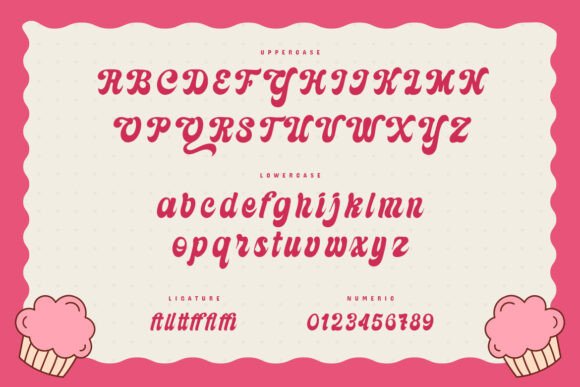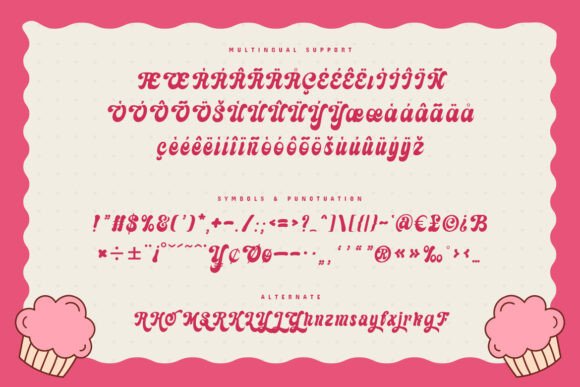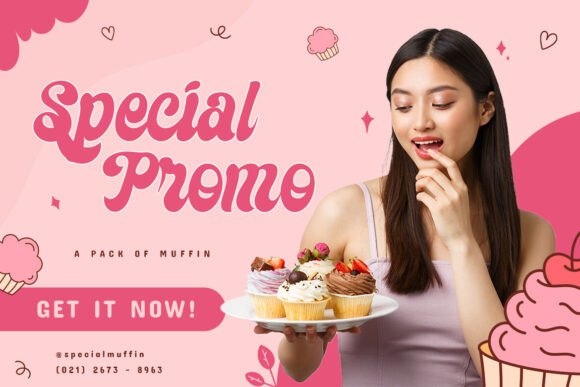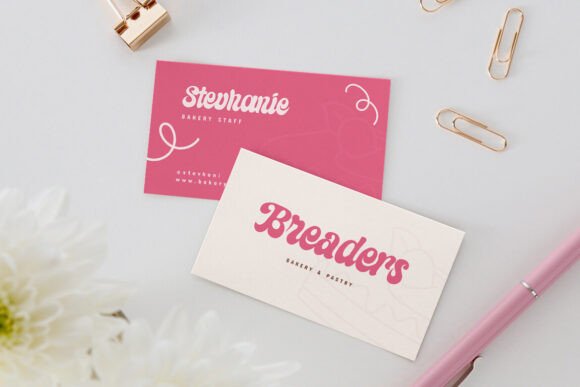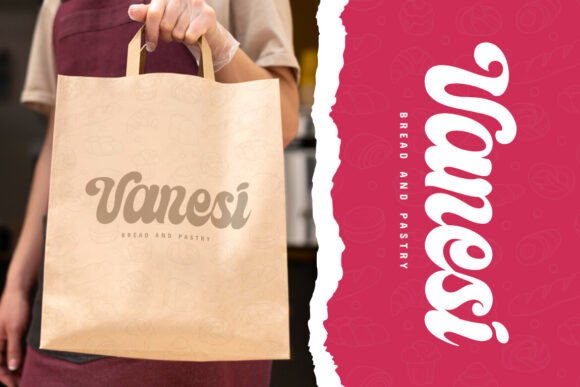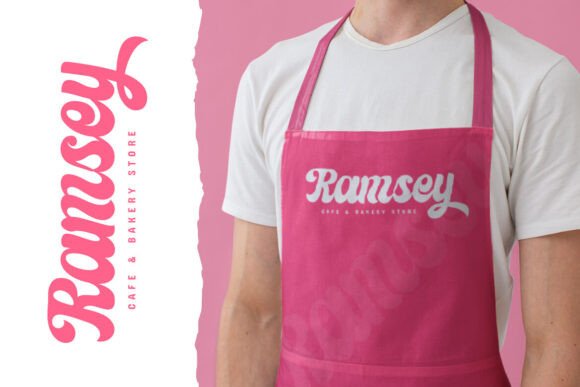
Introducing Fluffy Muffins Font: The Ultimate Typeface for Warmth and Charm
Are you tired of using the same old fonts that lack personality and warmth? Look no further than Fluffy Muffins, a sublimely soft-scripted typeface that will infuse your designs with an irresistibly charming aura. This delightful font is perfect for designers and crafters who want to add a touch of coziness and affection to their projects.
The Comforting Embrace of Fluffy Muffins
Fluffy Muffins is more than just a font – it’s an experience. Its tender curves and seamless, gliding letterforms evoke a sense of handcrafted authenticity, making it perfect for projects that demand a personal touch. Whether you’re designing invitations, greeting cards, packaging, or brand identities, Fluffy Muffins promises to bring a sense of warmth and invitation to your work.
So, what kind of projects are perfect for Fluffy Muffins? The answer is: any project that demands a touch of playful softness. Imagine using Fluffy Muffins to design:
- Invitations for a baby shower or a birthday party
- Greeting cards for special occasions, like holidays or weddings
- Packaging for a bakery, a café, or a food brand
- Brand identities for a children’s play center, a nursery, or a family-friendly business
The Benefits of Using Fluffy Muffins
So, why choose Fluffy Muffins over other fonts? Here are just a few benefits of using this delightful typeface:
- Warm and inviting atmosphere: Fluffy Muffins has an innate capability to lend an inviting and amiable atmosphere to your designs, making them perfect for projects that demand a personal touch.
- Handcrafted authenticity: The font’s tender curves and seamless letterforms evoke a sense of handcrafted authenticity, making it perfect for projects that demand a personal touch.
- Playful softness: Fluffy Muffins is perfect for projects that demand a touch of playful softness, like children’s brands, bakeries, or family-friendly businesses.
- Easy to read: Despite its playful nature, Fluffy Muffins is easy to read, making it perfect for body text or headlines.
How to Use Fluffy Muffins in Your Designs
Using Fluffy Muffins in your designs is easy. Here are a few tips to get you started:
- Pair it with bold fonts: Pair Fluffy Muffins with bold fonts to create a striking contrast and add visual interest to your designs.
- Use it for headlines: Use Fluffy Muffins for headlines or titles to add a touch of warmth and personality to your designs.
- Experiment with colors: Experiment with different colors to find the perfect match for your brand or project.
- Don’t be afraid to get creative: Don’t be afraid to get creative and try new things. Fluffy Muffins is a versatile font that can be used in a variety of creative ways.
In conclusion, Fluffy Muffins is a unique and charming typeface that will infuse your designs with warmth, coziness, and affection. Its tender curves and seamless letterforms make it perfect for projects that demand a personal touch, like invitations, greeting cards, packaging, or brand identities. Whether you’re a designer or a crafter, Fluffy Muffins promises to bring a touch of playful softness to your creations. So, why wait? Give Fluffy Muffins a try today and see the difference it can make in your designs!